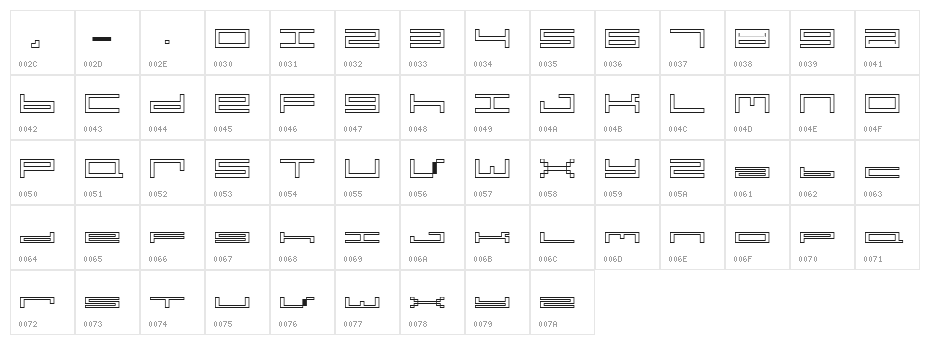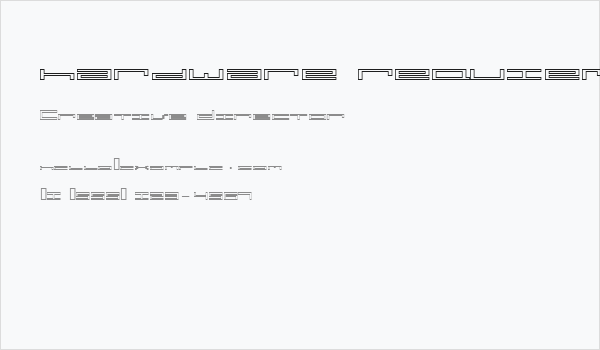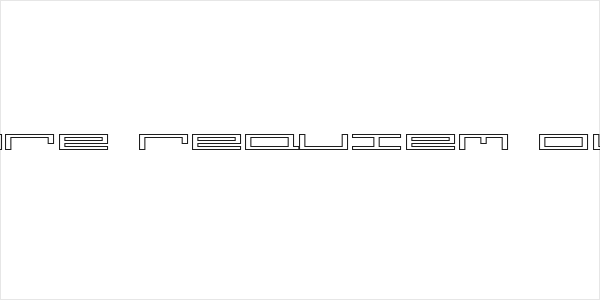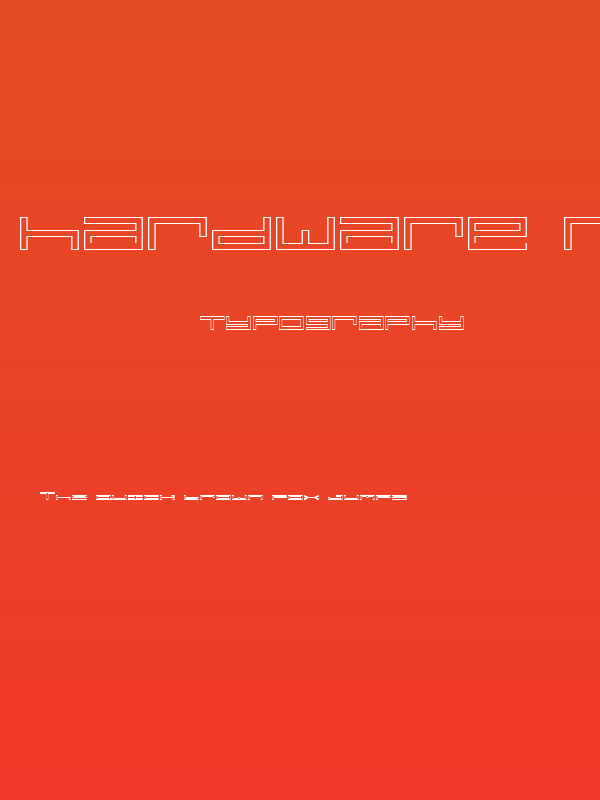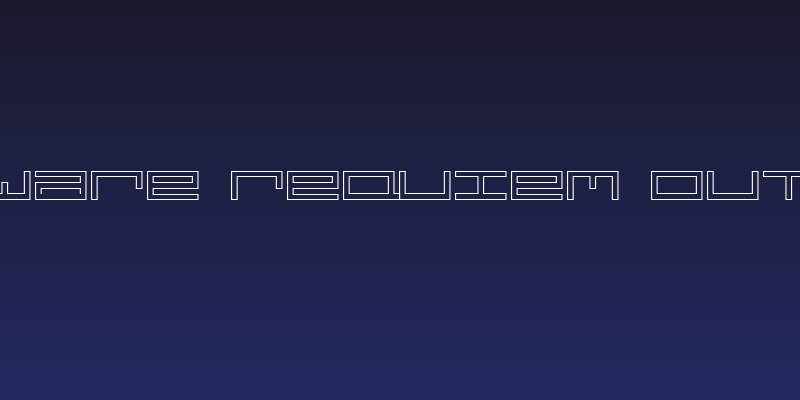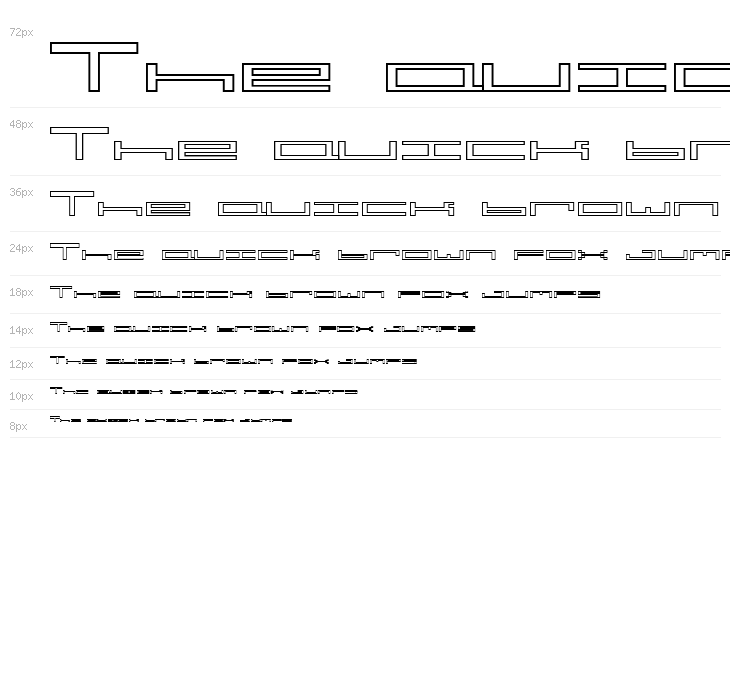
hardware requiem outline Font
hardware requiem outline Description
This font features a futuristic and geometric design, characterized by its outlined structure and angular forms. Each letter is crafted with precision, creating a sense of modernity and technological advancement. The uppercase and lowercase letters maintain a consistent style, with sharp edges and a uniform line weight that gives the font a sleek and streamlined appearance. The numerals and special characters are designed to match the overall aesthetic, making the font versatile for various applications. Its unique style makes it stand out, perfect for projects that require a modern and innovative look.
| Use Case | Logos, Headlines, Digital interfaces |
| Proposed Projects | Ideal for tech branding, sci-fi themed designs, digital interfaces, and modern advertising. |